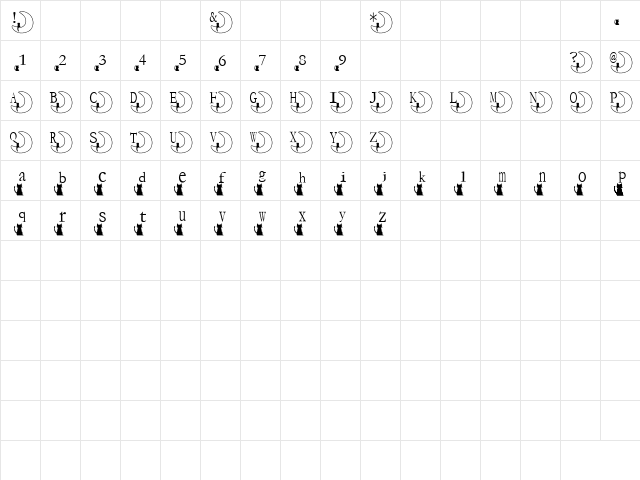
Mooncat Font Regular
Design Context for Mooncat Font
Mooncat Font is a composed and adaptable typeface that performs quietly and consistently across a wide range of design contexts.